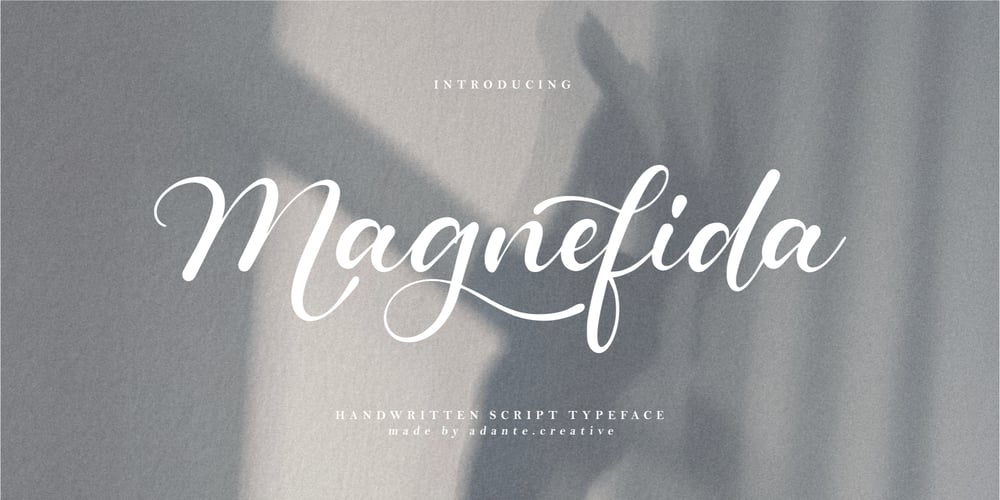
Magnefida Font Family was designed by Yanto Suheri and published by Adante Creative. Magnefida contains 1 styles and family package options. Introducing by Adante.CreativeMagnefida A Handwritten Script Font Magnefida is perfect for product packaging, branding project, megazine, social media, wedding, or just used to express words above the background.Magnefida also multilingual support.